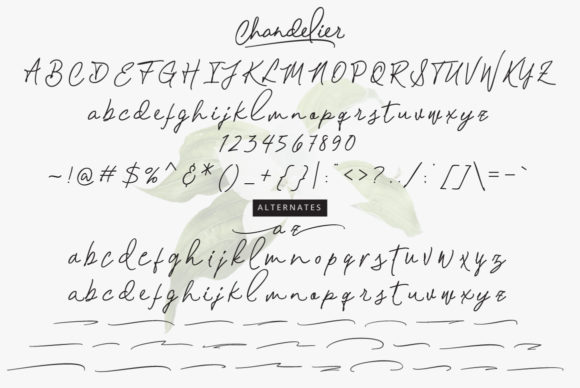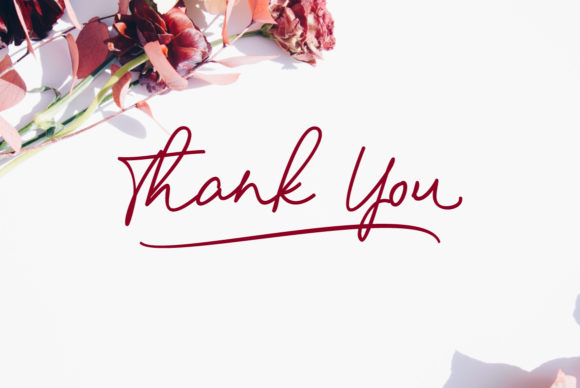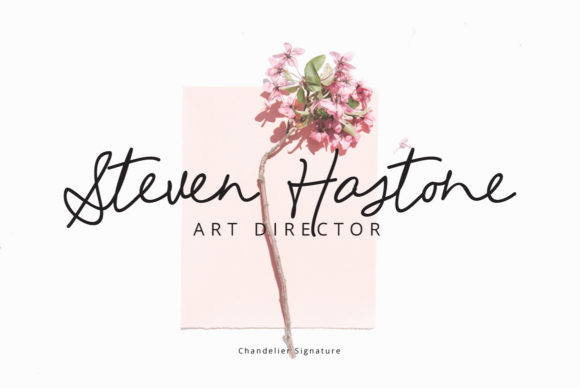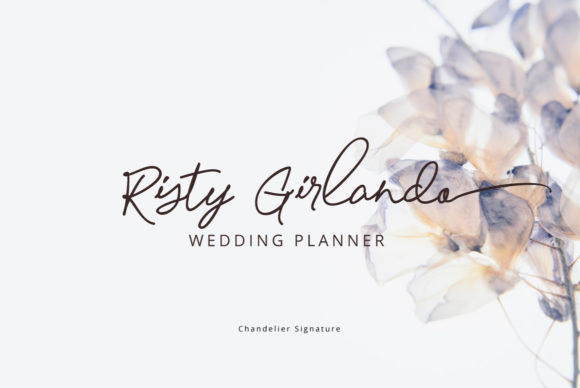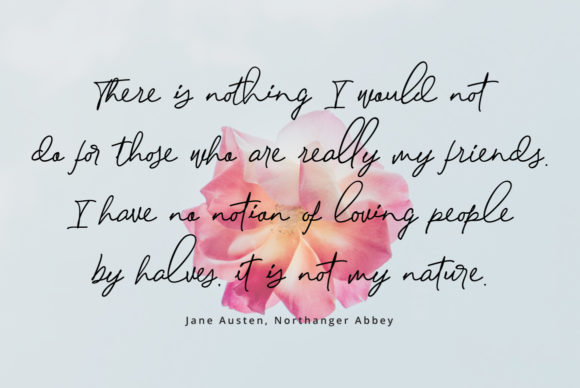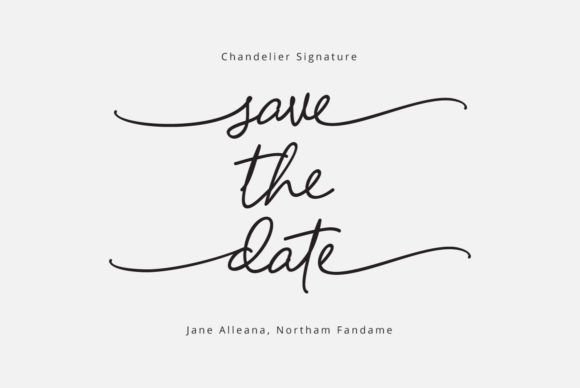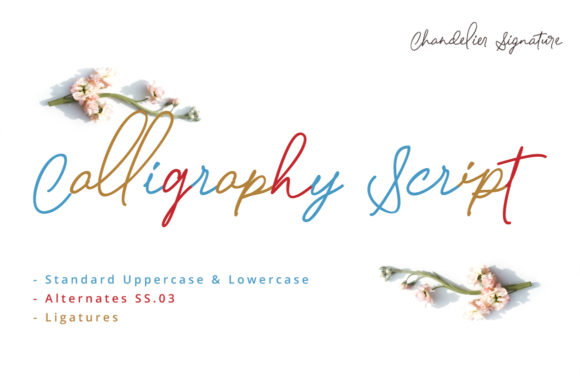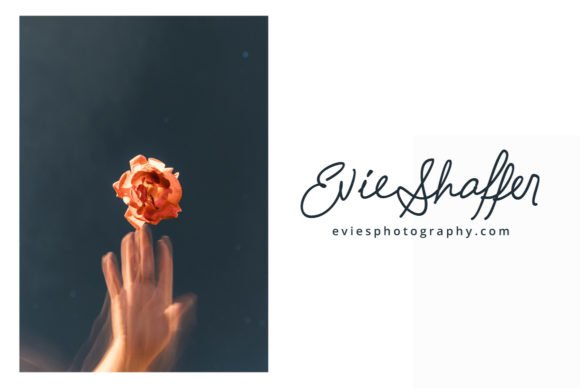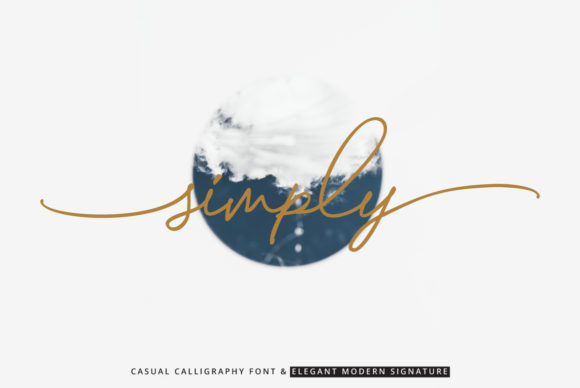
HomeScript FontsChandelier Font Script Fonts Chandelier Font FacebookXPinterestWhatsApp Chandelier Font Poster 2 Chandelier Font Poster 3 Chandelier Font Poster 4 Chandelier Font Poster 5 Chandelier Font Poster 6 Chandelier Font Poster 7 Chandelier Font Poster 8 Chandelier Font Poster 9 Chandelier Font Poster 10 Chandelier Font Poster 11 About Chandelier Font Chandelier is a stunningly light and beautiful script that will add a unique feel to any craft! DOWNLOAD ON CREATIVE FABRICAThis font is sold and delivered by Creative Fabrica. Font Canyon may earn a commission if you buy through this link. People also explored Daygarden Font Calstavier Font Pentel Signature Font Humility Font Blues Rockers Font Angelonia Font Erkanth Font Sunflower Font Sharely – Beautiful Brush Font 315 0 TagsChandelier Font Previous articleShampit FontNext articleBrulle Font LEAVE A REPLY Cancel reply Comment: Please enter your comment! Name:* Please enter your name here Email:* You have entered an incorrect email address! Please enter your email address here Website: Save my name, email, and website in this browser for the next time I comment. Personal Use Free Bosk Personal Use Free Read more about this font Delions Personal Use Free Read more about this font Authurium Personal Use Free Read more about this font Solaria Personal Use Free Read more about this font BLOG Transform Your Website: Elevate Your Typography with 7 Best Web Font Generators Are you ready to transform your website's typography from ordinary to extraordinary? Great! Today, we're diving into the world of web font generators, which... Free Fonts Risk: Why Free Fonts Can Be Dangerous for Designers How to Cut Any Font on Cricut: Convert a Font to SVG (Free) Fonts That Capture the Spirit of New York City